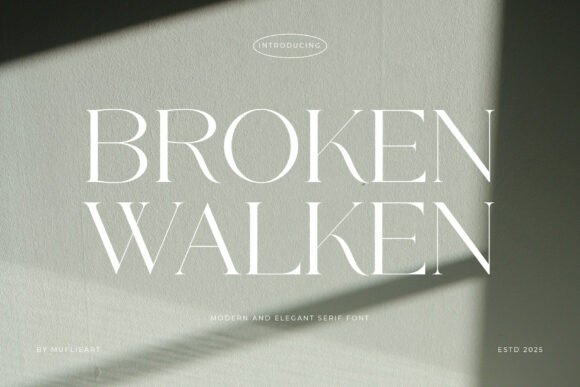
I still remember the frustration of working on a luxury branding project, determined to find the perfect font that would elevate the visual identity of my client’s high-end boutique hotel. The requirement was clear: a typeface that exuded sophistication, elegance, and a touch of avant-garde flair. After hours of scouring through font libraries and testing various options, I stumbled upon Broken Walken – a modern serif font that redefined editorial elegance.
First Impressions: A Study in Cinematic Contrast
Broken Walken is a study in cinematic contrast, featuring breathtakingly tall letterforms with razor-sharp hairlines and robust vertical stems. Its unique character lies in its “broken” or stencil-inspired apertures, providing a high-fashion, avant-garde aesthetic that feels both architectural and ethereal. This font is an extraordinary choice for luxury branding, high-end magazine headers, boutique hotel signage, and artisanal packaging.
• ✨ Sophisticated rhythm: Broken Walken has a distinct rhythm that adds a touch of elegance to any headline or title.
• ✅ High-fashion aesthetic: The font’s avant-garde design makes it perfect for luxury branding and high-end magazine headers.
• 💯 Artisanal beauty: Broken Walken delivers a sense of polished artisanal beauty to your visual identity.
⚠️ While Broken Walken is an exceptional font, it’s worth noting that its tall letterforms may not be suitable for body text or smaller font sizes. Additionally, some users may find the font’s stencil-inspired apertures to be a bit distracting at first glance.
🤔 One quirk I’ve noticed is that the font’s OpenType features can be a bit finicky in certain design software. However, with a little practice, you’ll get the hang of it!
The Designer Inspiration Behind Broken Walken:
While the true inspiration behind Broken Walken remains a mystery, it’s clear that the font’s design was influenced by the world of high-end fashion and luxury branding. Imagine a designer who spent years working with top fashion houses, eventually becoming fascinated with the intersection of art and typography. This font is a reflection of their passion for creating something truly unique and breathtaking.
Q: What makes Broken Walken suitable for luxury branding?
A: Broken Walken’s sophisticated rhythm, high-fashion aesthetic, and artisanal beauty make it an exceptional choice for luxury branding and high-end editorial design.
Q: Can I use Broken Walken for body text?
A: While Broken Walken is an exceptional font, its tall letterforms may not be suitable for body text or smaller font sizes. It’s best used for headlines and titles.
Q: Is Broken Walken compatible with OpenType features?
A: Yes, Broken Walken supports OpenType features, including stylistic alternates, glyphs, and swashes. This allows for a high degree of customization and flexibility in your design workflow.